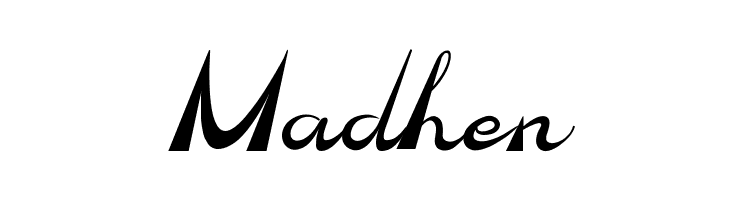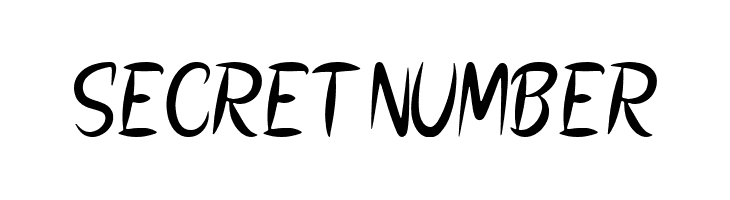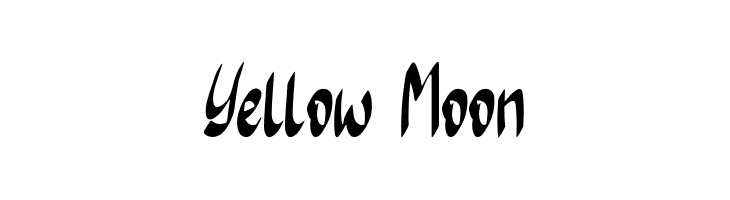
A bold, brush-style font with dynamic, slanted strokes.
A bold, slanted font with high contrast and elegant curves.
A dynamic and energetic font with bold, slanted uppercase and fluid, cursive lowercase letters.
A playful, handwritten script font with dynamic, slanted characters.
A dynamic and expressive cursive font with bold, slanted letterforms.
A bold, handwritten-style font with dynamic, slanted characters.
A bold, dynamic font with a modern, slanted style.
A dynamic and flowing script font with elegant, slightly slanted letterforms.
A dynamic, brush-style script font with bold, slanted strokes.
A bold, brush-style handwritten font with dynamic, slanted strokes.